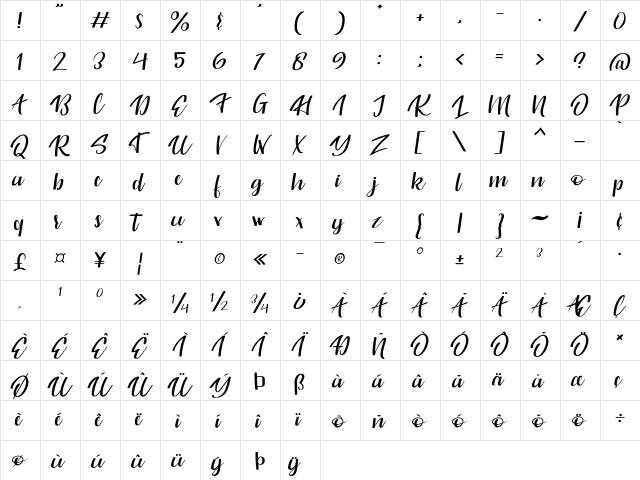
Originality Script Personal Use Regular
Design Context for Originality Script Personal Use Typeface
Originality Script Personal Use flows with the natural rhythm of handwritten lettering, making it ideal for designs that call for warmth and personal expression.
Font Pairing: Combine Originality Script Personal Use with a simple geometric sans for maximum contrast — the tension between flowing curves and clean structure is a classic typographic pairing.
Pro Tip: Use Originality Script Personal Use for short runs of text — names, titles, or taglines. Extended body copy in script faces tires the eye quickly.